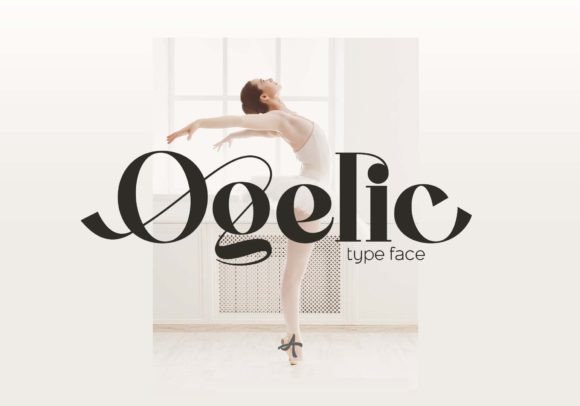
Meet Ogelic Font, a captivating new font that will bring sophistication and charm to your design projects. It's the perfect choice for those seeking a balance between tradition and modernity.
Born from the creative mind of ardyanatypes, Ogelic is a modern serif font that embodies the essence of elegance and style. Its clean lines, delicate curves, and unique character set come together to create a font that is both visually appealing and highly functional.
Immerse yourself in the world of artistic expression with Ogelic Font. Craft stunning magazine designs that captivate readers, elevate your branding materials, or create eye-catching social media graphics. Let Ogelic's timeless appeal lend a touch of sophistication to your creative endeavors.
With Ogelic Font by your side, let your creativity soar. Its versatility and timeless beauty will make it your go-to font for a wide range of projects. Whether you're designing logos, posters, brochures, or websites, Ogelic will add a touch of class and refinement to your designs.